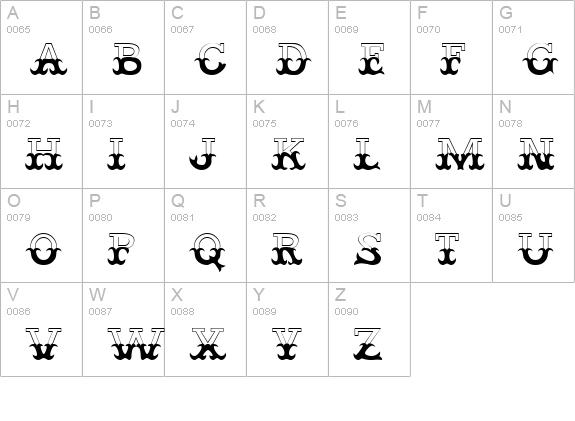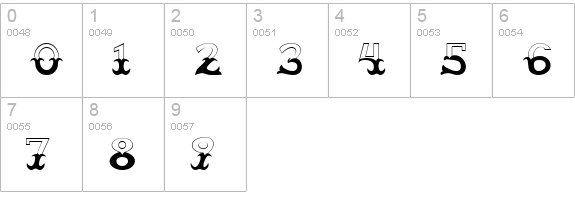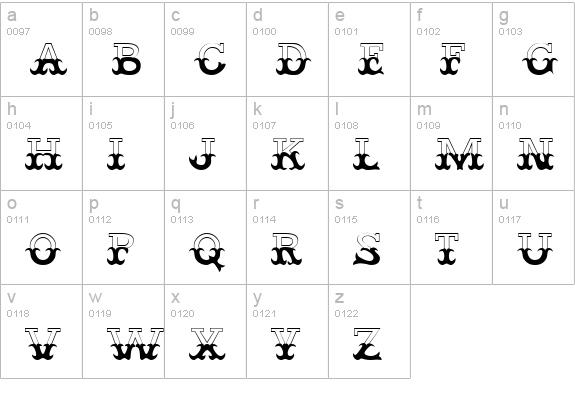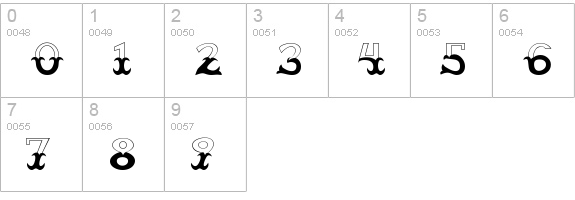
CourtGesture Font Details
CourtGesture font is a stylish and elegant typeface that exudes sophistication and charm. With its delicate curves and graceful lines, this font is perfect for adding a touch of class to any design project. Whether you're creating invitations, logos, or posters, CourtGesture font will make your text stand out with its timeless appeal. What's even better is that CourtGesture font is completely free to download at FontsMarket.com. That's right, you can elevate your designs without breaking the bank. So why wait? Download CourtGesture font today and add a touch of elegance to your creations.